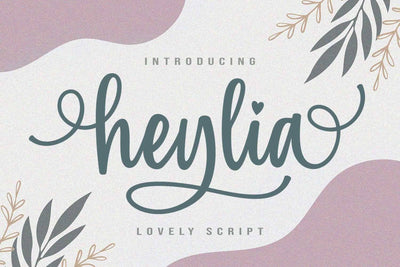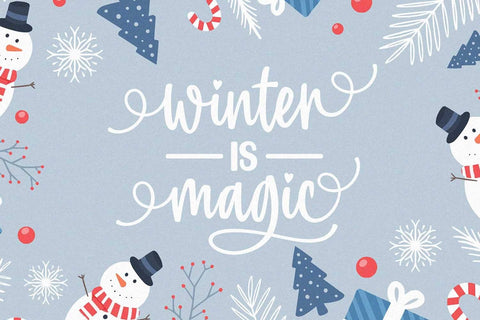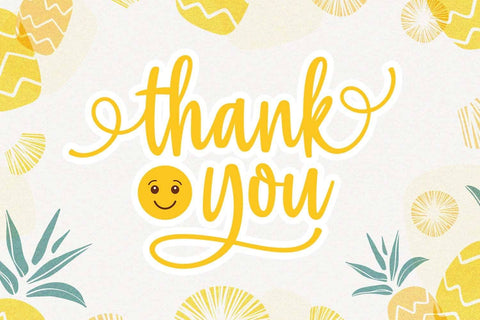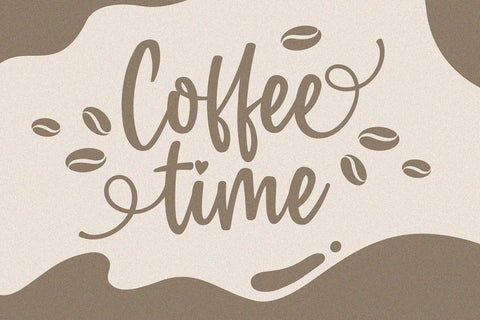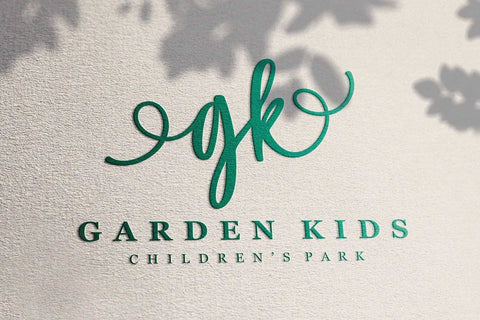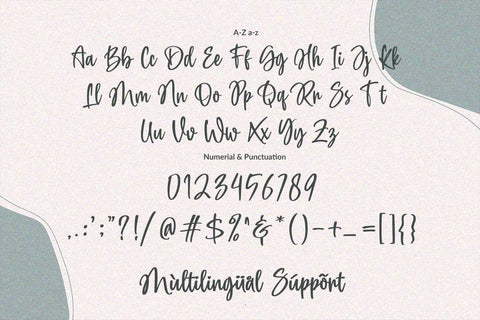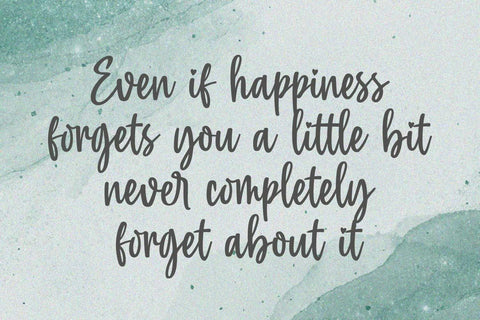
Heylia - Lovely Script Font
Heylia is a flowing handwritten font, described by an elegant touch, perfect for your favorite projects.
Fall in love with its incredibly distinct and timeless style and use it to create spectacular designs!